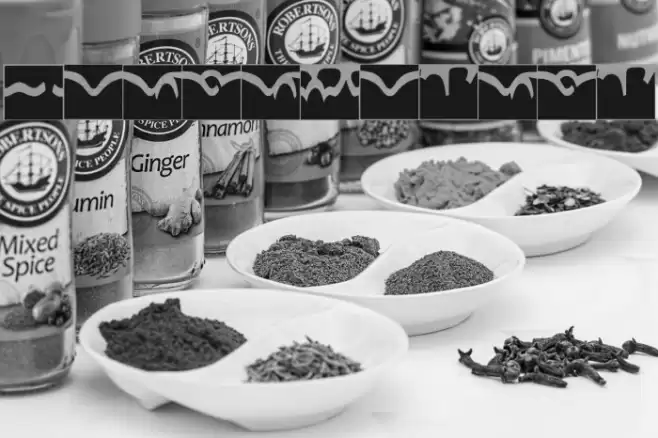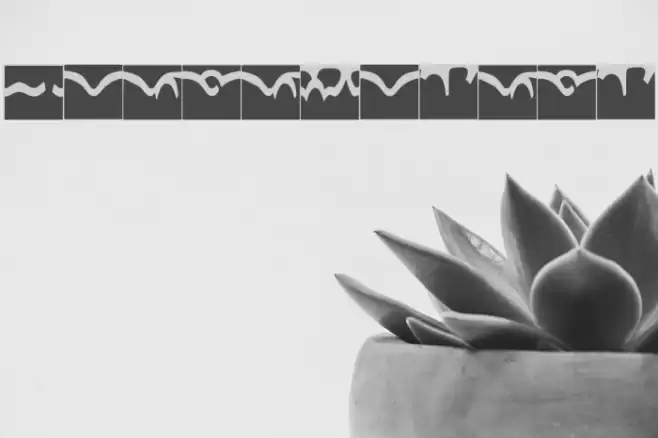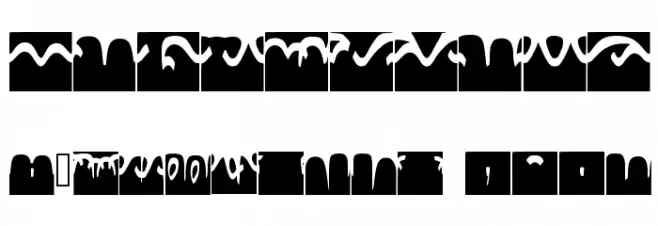
CodedBorder Font
CodedBorder Description
This font features a highly decorative and abstract style, characterized by bold, thick strokes that form intricate, wave-like patterns. The characters are designed with a unique, artistic flair, resembling a blend of calligraphy and abstract art. Each letter is distinct, with swirling lines and curves that create a sense of movement and fluidity. The overall appearance is striking and eye-catching, making it suitable for creative and artistic projects. The font's design is reminiscent of modern art, with a focus on visual impact and aesthetic appeal.
A bold, decorative font with abstract, wave-like patterns and artistic flair from Dingbats fonts.
- Proposed Projects: Ideal for artistic posters, album covers, creative branding, and decorative invitations.
- Use Case: Logos, Headlines, Artistic projects